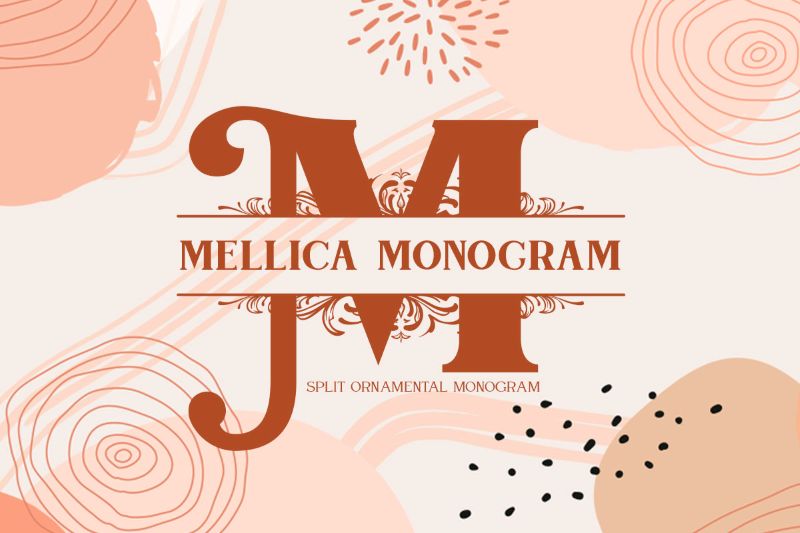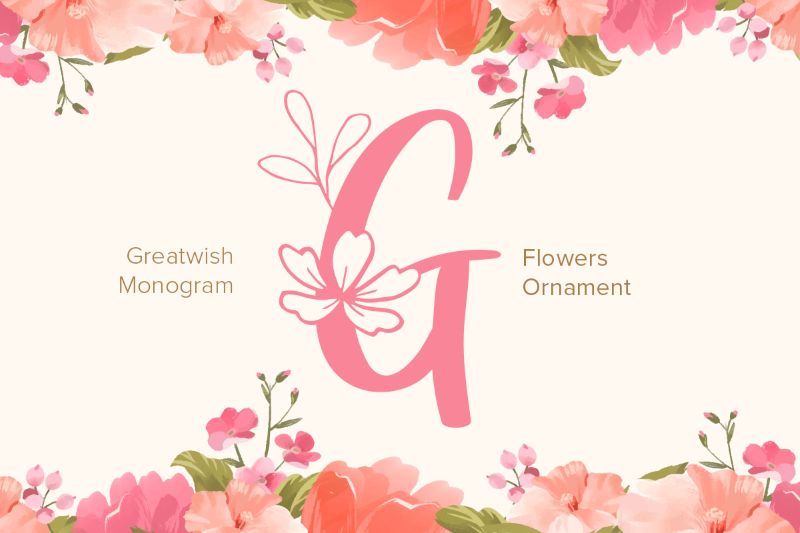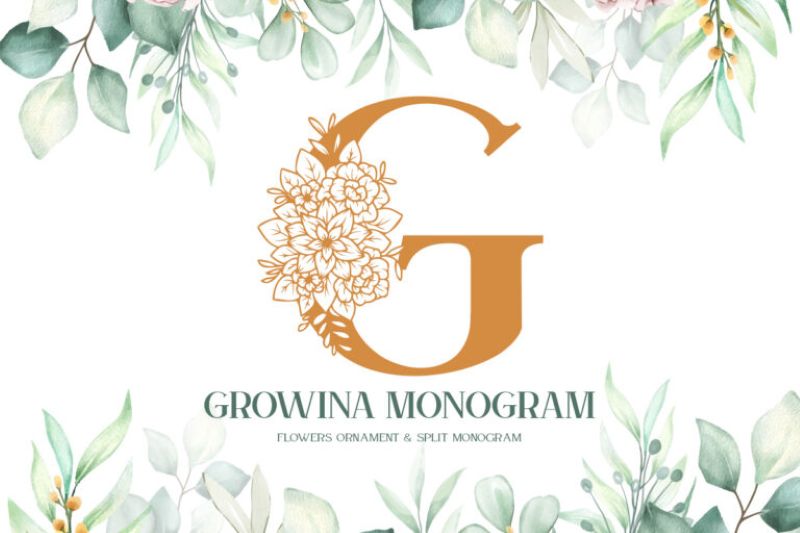
A monogram is a design element consisting of one or more initials combined to create a visual identity. In modern design practice, a monogram functions both as a brand identity and an aesthetic element that strengthens a design’s visual character. Therefore, a beautiful monogram font helps create an elegant, personal, and recognizable look for a design.
A beautiful monogram font commonly features decorative letterforms with artistically designed detail. Designers often combine smooth curves, balanced letter proportions, and additional ornamentation to enhance the appearance of the initials. As a result, these typographic characters can deliver an elegant, romantic, or classic feel, depending on the design concept.
Hence, this article offers various beautiful monogram font choices with varied visual character. Each font has its own style to clearly and attractively emphasize the beauty of the initials. Thus, monogram fonts can be used for a variety of your elegant and artistic design needs.
Angelina Monogram
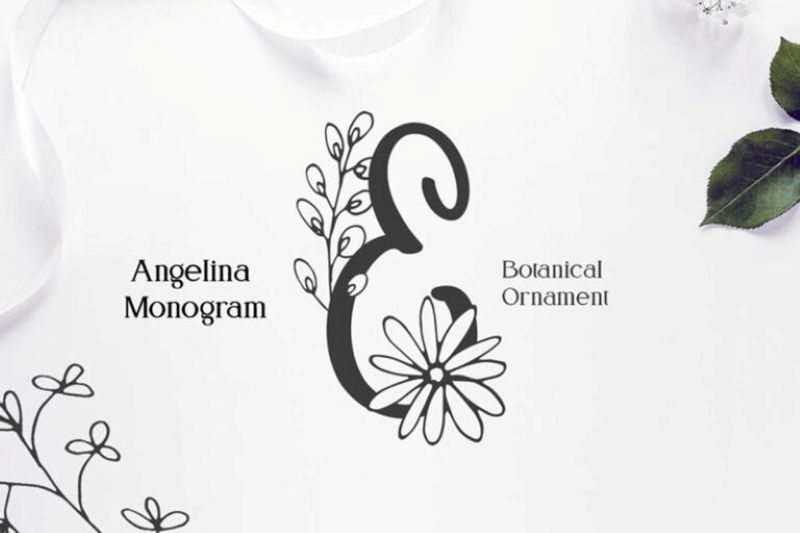
Angelina Monogram showcases an elegant single-letter design with smooth curves and floral elements that add to the decorative and romantic feel. The letter character is designed to emphasize the artistic aesthetic of a single initial, making it one of the most beautiful monogram font recommendations. This monogram style is ideal for use on wedding souvenirs, invitations, greeting cards, initial logos, and event decorations that seek an elegant, personal, and memorable feel.
Aqueela Monogram
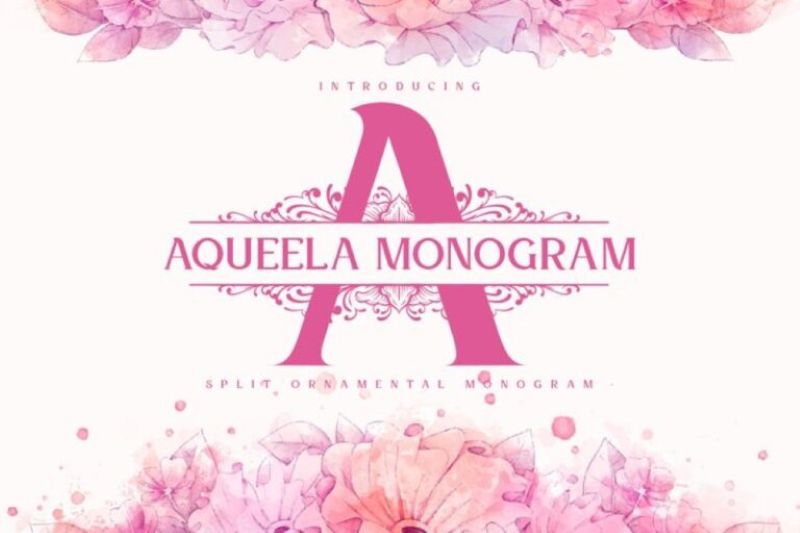
Aqueela Monogram offers a single capital letter with a bold structure and balanced proportions, creating a strong yet elegant appearance as a beautiful monogram font. The letter character has symmetrical ornamental elements that flow through the center of the letter. creating a delicate and artistic decorative impression. The combination of simple letter forms with detailed ornamentation makes it suitable as an identity element for wedding invitations, souvenirs, and personal decorations.
Bogota Monogram
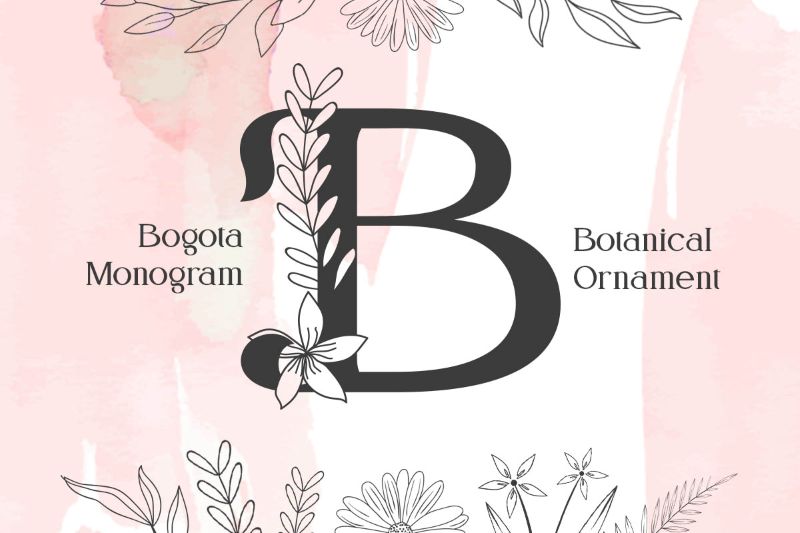
As a beautiful monogram font, Bogota Monogram offers a single capital letter with a solid yet elegant visual main element. The uniqueness lies in the letter combination with botanical ornaments, such as flowing leaves and flowers along the letter’s edge. Thus, it creates a gentle, natural, and artistic decorative feel for the design. Therefore, this monogram design is perfect for a visual identity element in wedding invitation designs, souvenirs, personal logos, and even various decorations with an elegant and natural theme.
Carolina Monogram
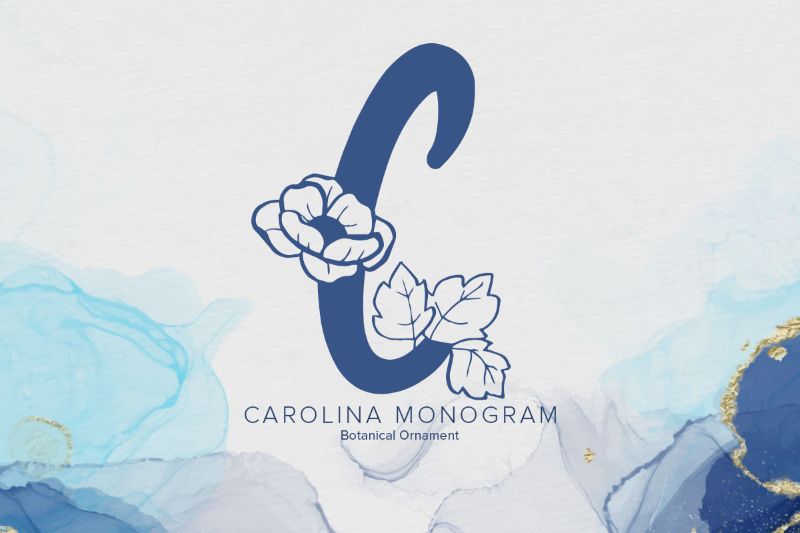
Highlighting the beauty of monogram typography, Carolina Monogram features a single capital letter as the elegant main visual element. The combination of letters and decorative floral ornaments makes this font unique. The arrangement of these elements creates a natural, refined, harmonious, and aesthetic feel, enhancing its visual appeal as a beautiful monogram font. This design is perfect for use on greeting cards, gift packaging, product labels, event decorations, and various elegant personal design media.
Le Jour Monogram
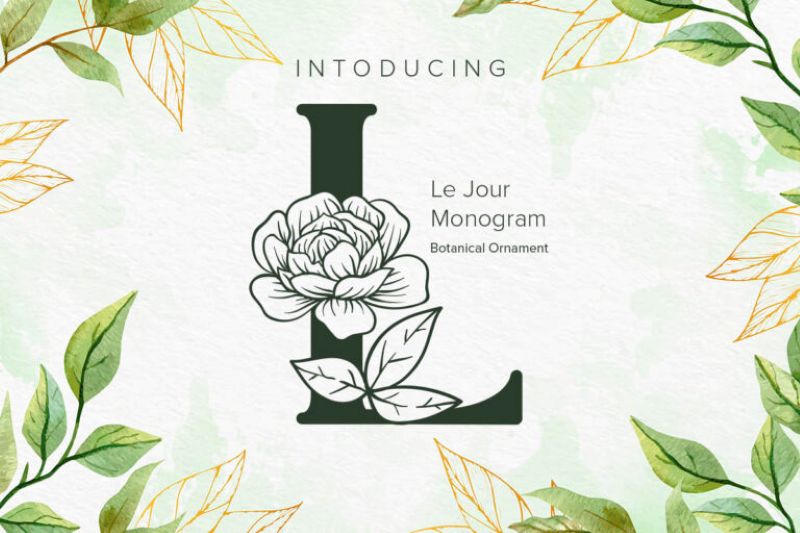
The beauty of Le Jour Monogram comes from the solid capital letter with its sturdy serif structure. The shape makes the monogram look eye-catching and striking as a beautiful monogram font. This monogram’s character consists of a large floral ornament in the center of the letter, surrounded by leaf elements. The combination of simple letterforms and detailed botanical ornamentation results in an elegant monogram font suitable for a wide range of natural-themed decorative media.
Flanela Monogram
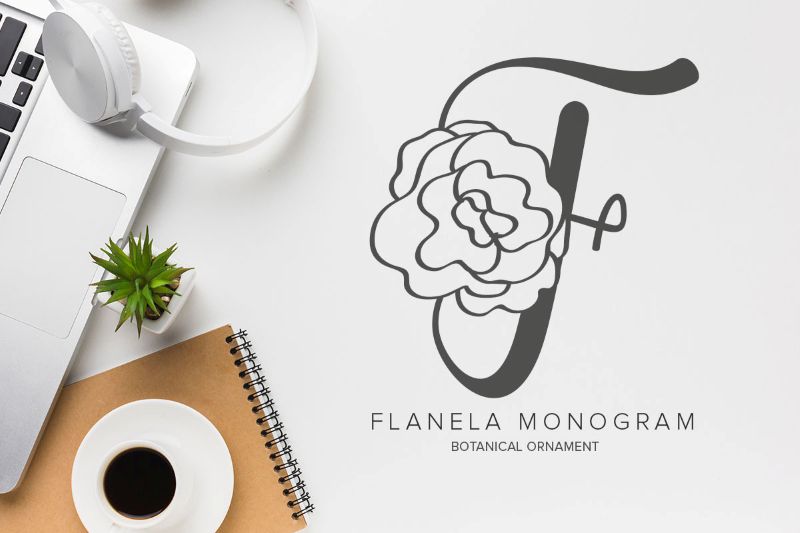
As a decorative monogram element, Flanela Monogram features a single letter with a flower ornament, adding a graceful and decorative touch. The letter design artistically emphasizes the aesthetic of a single initial, making it an attractive, beautiful monogram font for various design needs. This font is perfect for wedding invitation designs, merchandise designs, personal logos, greeting cards, and other decorative elements that convey an elegant, personal, and classy feel.
Georgia Monogram
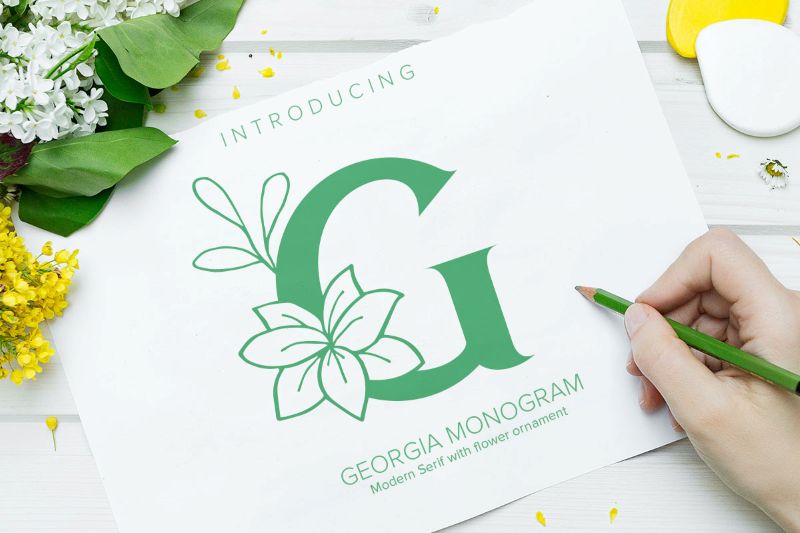
The combination of modern serif and floral ornamentation is the main visual characteristic of Georgia Monogram. The letter structure features clean shapes with balanced proportions and subtle floral details, clearly and artistically highlighting the aesthetic of a single initial. This character makes it a beautiful monogram font suitable for a variety of design needs. This font works perfectly for wedding invitations, event souvenirs, personal logos, greeting cards, and various decorative elements that want to convey an elegant and classy impression.
Explore these various font choices that suit your design needs. Find the most beautiful monogram font that can represent the desired visual identity you want to convey. Therefore, use those fonts creatively to make an elegant, unique, and memorable monogram design.